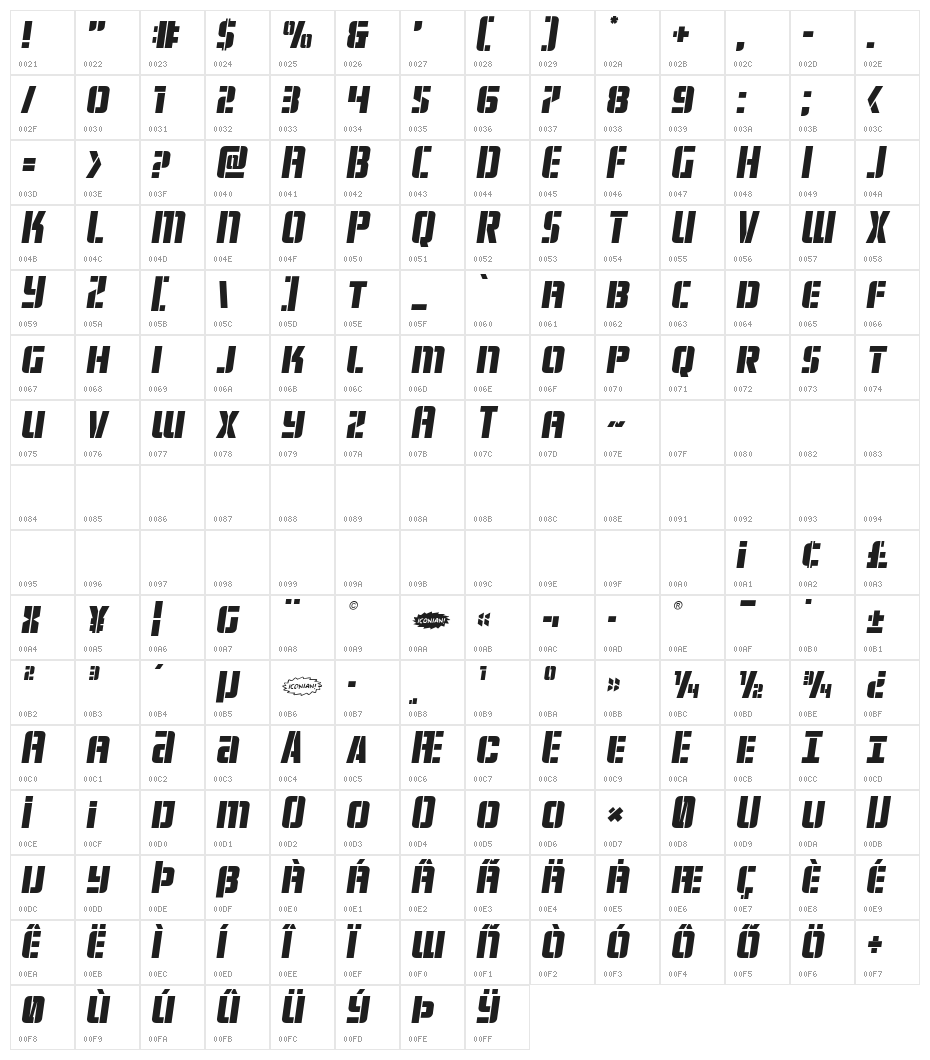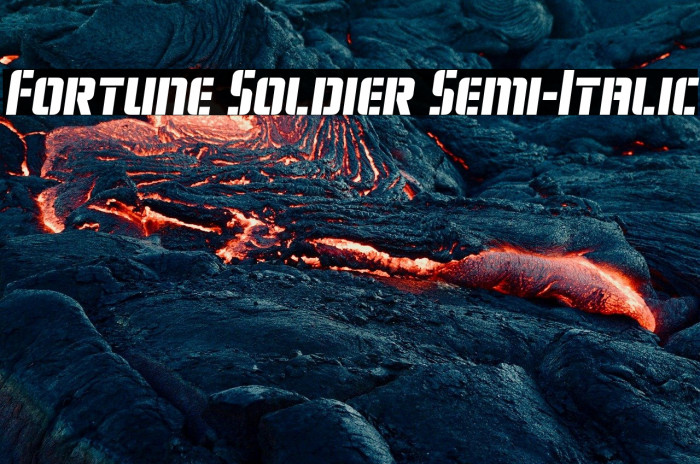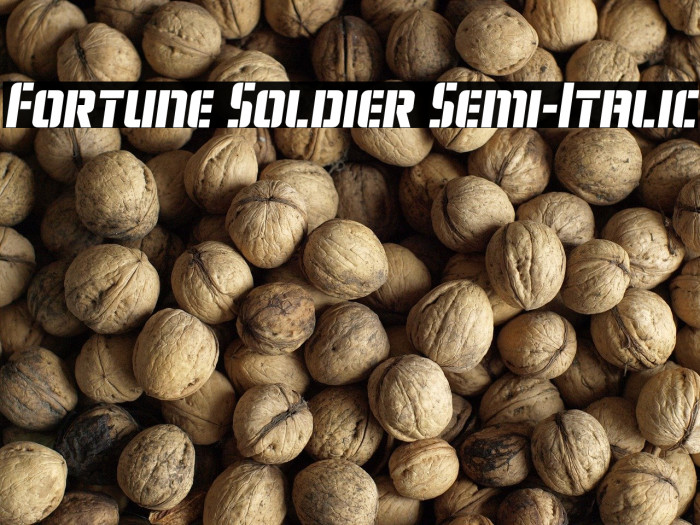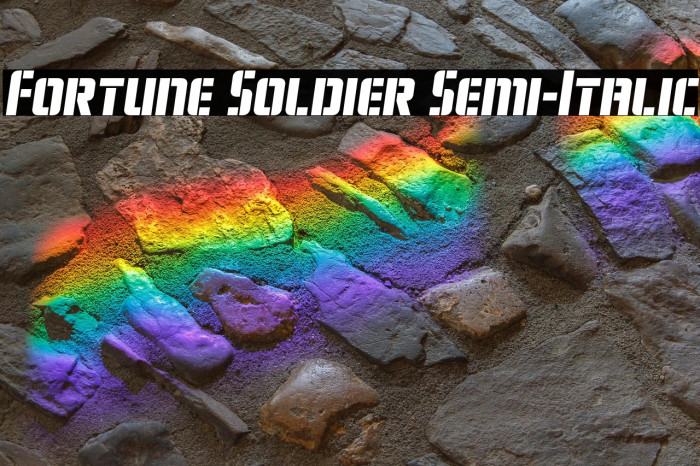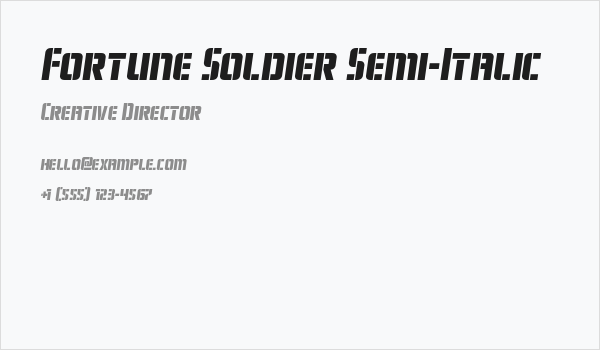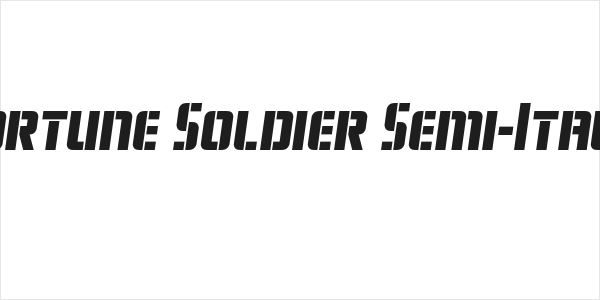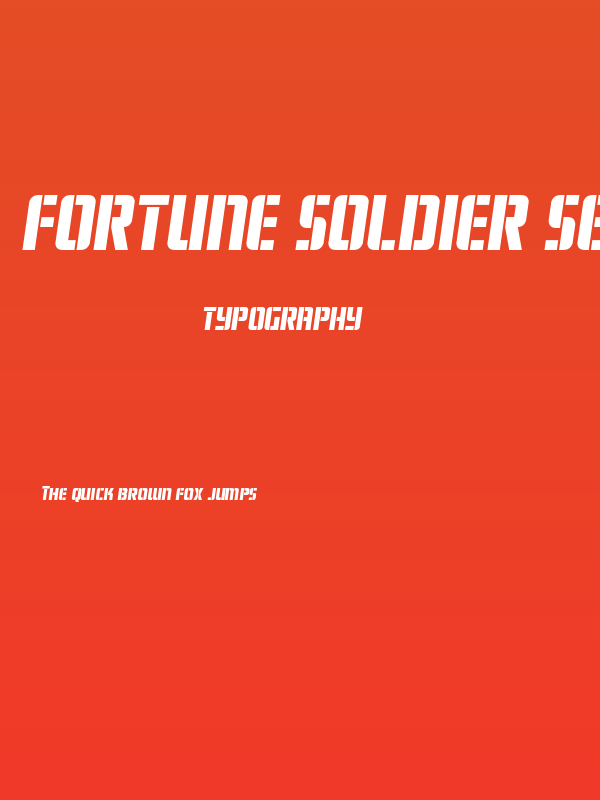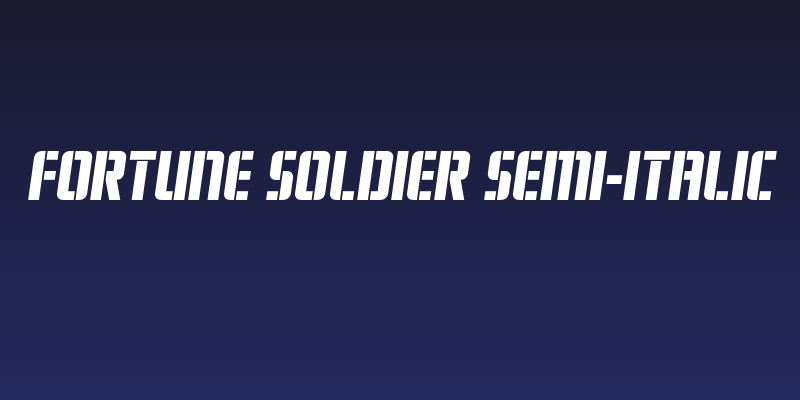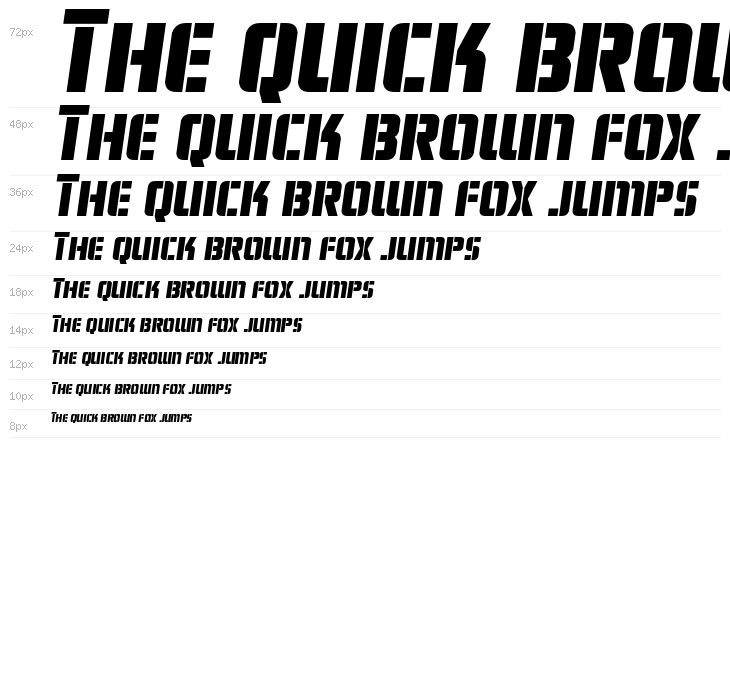
Fortune Soldier Semi-Italic Font
Fortune Soldier Semi-Italic Description
This font features a bold, semi-italic style with a strong, commanding presence. The characters are designed with a distinct slant, adding a dynamic and forward-moving feel. The strokes are thick and consistent, providing a robust and sturdy appearance. The uppercase and lowercase letters maintain a uniform width, contributing to a cohesive look. The numerals and special characters are crafted to match the boldness of the alphabet, ensuring a seamless integration across all text elements. This font is ideal for making a statement, with its powerful and assertive design.
| Proposed Projects | Ideal for military-themed designs, sports branding, posters, and headlines. |